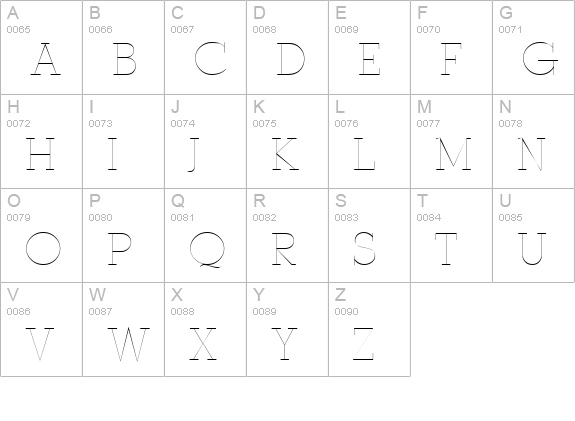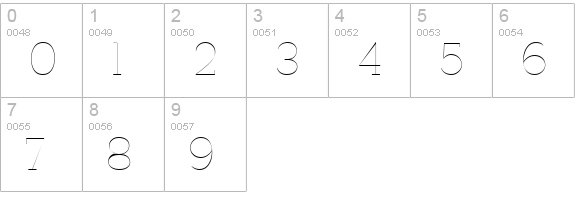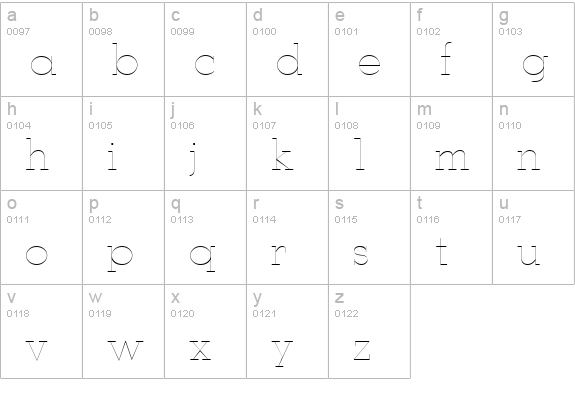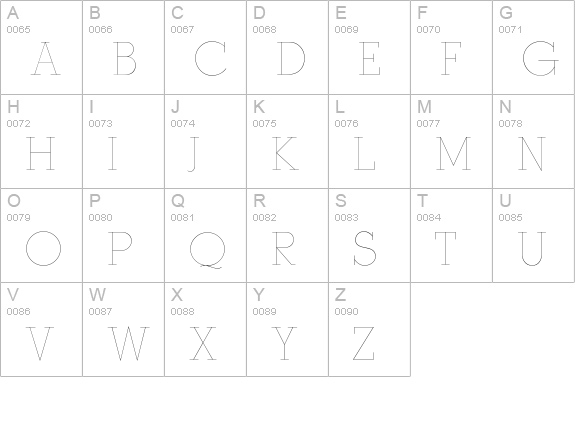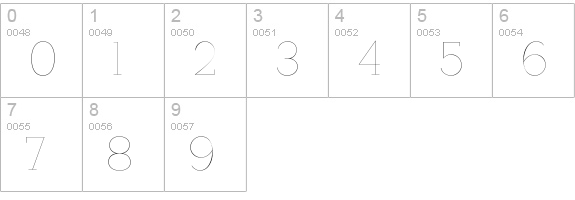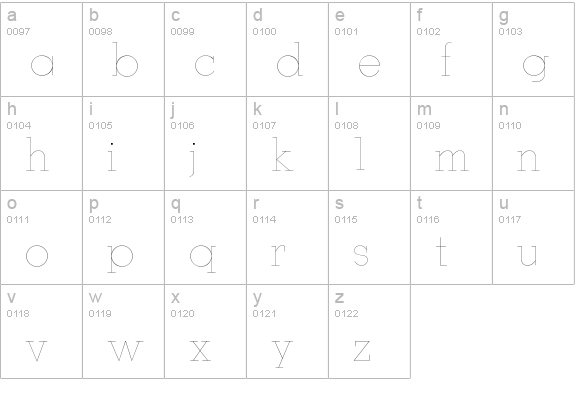
Stymie Regular Font Details
Stymie Regular is the standard, neutral variant in the Stymie typeface family \xE2\x80\x94 well suited to general body text, paragraphs, and standard typographic work.
Stymie Regular font is a timeless and classic typeface that exudes elegance and sophistication. With its clean lines and sharp edges, Stymie Regular is perfect for a variety of design projects, from branding to editorial design. This versatile font is well-suited for both print and digital applications, making it a must-have for any designer's toolkit. The best part? Stymie Regular is available for free download at FontsMarket.com. You can easily access this high-quality font and elevate your designs without breaking the bank. Don't miss out on the opportunity to add Stymie Regular to your font collection today and bring a touch of timeless style to your projects.